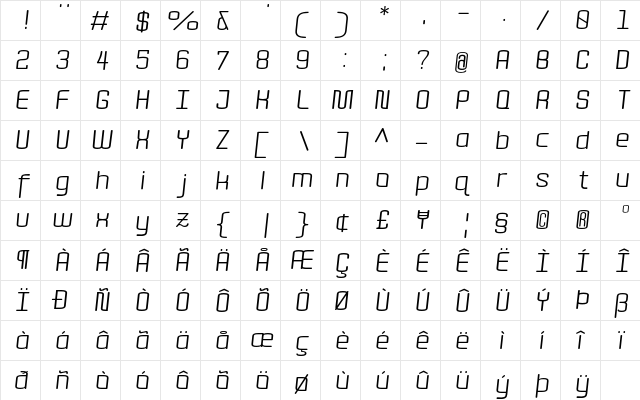
Quota Regular Italic Ext. Font Preview
Quota Regular Italic Ext.
Quota Regular Italic Ext. Font Details
| Style | Regular Italic Ext. |
| Designer | Ryan Hellyer Williamson |
Design Context for Quota Typeface
Quota offers clean, dependable letterforms without strong stylistic allegiance, making it a practical choice for designers who need flexibility. Its italic angle brings a sense of urgency and motion to the letterforms.
Pro Tip: Use Quota for emphasis, pull quotes, and subheadings where its slanted energy can add rhythm to the layout.